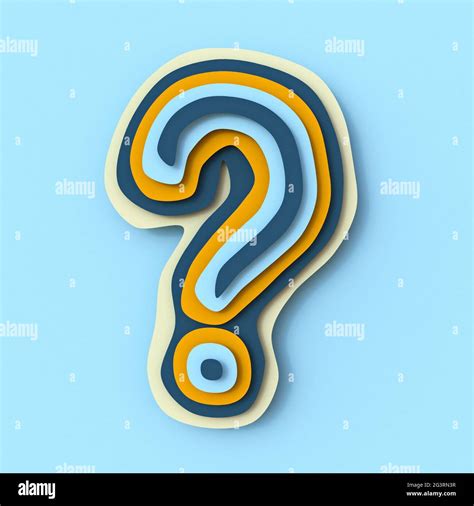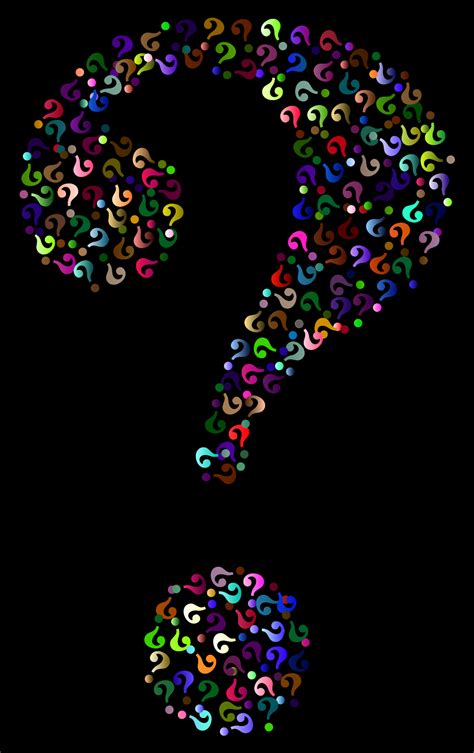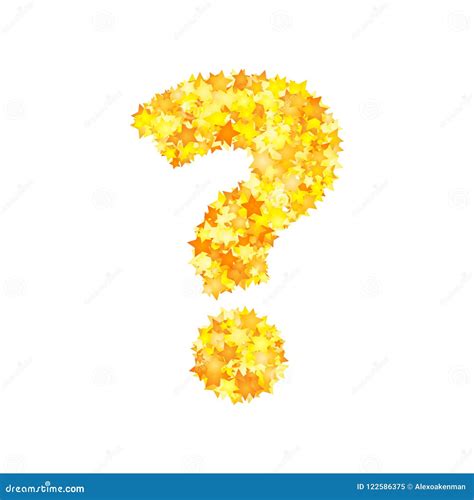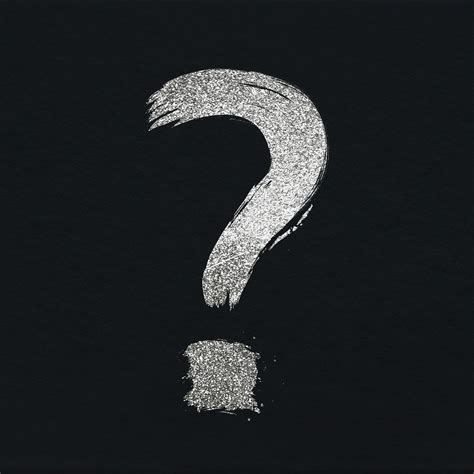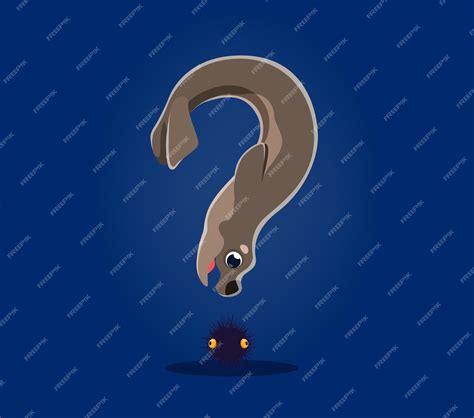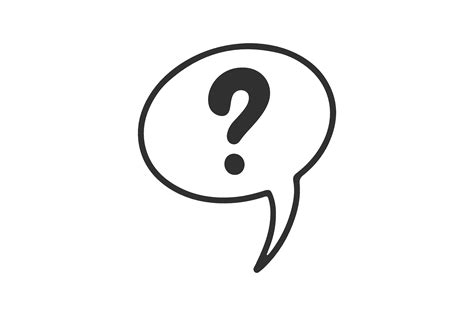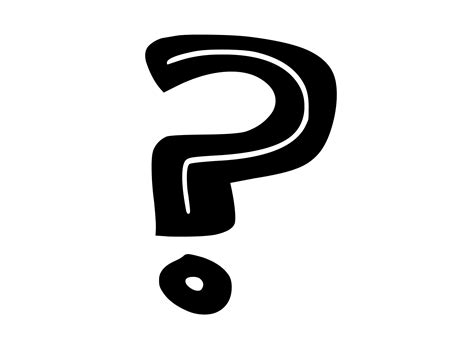
Choosing the perfective typeface for interrogation mark glyph is a subtle art that shape how your audience perceives tone, curiosity, and inquiry in your design. Whether you are crafting a landing page, a graphic novel, or a formal document, the frame of this punctuation grade convey as much as the words surrounding it. Some designers neglect the singularity of individual character, yet a well-chosen case can transmute a standard research into a design argument that fascinate attention and enhances legibility across various digital and print interface.
The Evolution and Anatomy of the Question Mark
The question mark has a rich typographical story, evolving from the Latin punctus interrogativus. Today, it remains the most recognizable index of a query in written communication. When choose a typeface for inquiry marker clarity, you must consider the relationship between the hook and the dot. In professional typography, this is referred to as the "dot-to-curve ratio".
Why Character Shapes Matter
Different typefaces kickshaw punctuation with varying grade of stylistic flourish. Consider these divisor when appraise a font's enquiry mark:
- Stroke Contrast: High-contrast fonts often have delicate, slender bender that might vanish on low-resolution blind.
- Bowl Depth: The breadth of the curve determines how much "white space" exists within the character, which is critical for readability at small point sizing.
- Terminal Style: The bottom dot can be circular, teardrop-shaped, or square, each conveying a different brand phonation.
Comparing Popular Font Styles
The postdate table schema how different font categories loosely plow the query mark glyph, allowing you to match your fount to the desired emotional impact.
| Font Category | Ocular Characteristic | Better Use |
| Seriph | Traditional, teardrop depot | Books, editorial, formal invitation |
| Sans-Serif | Geometric, undifferentiated throw | Web interface, UI/UX, mobile apps |
| Book | Fluid, gestural, expressive | Branding, son, invitations |
| Monospaced | Boxy, technical, retro | Code editor, data-heavy documents |
Selecting the Right Font for Digital Interfaces
When working with digital blind, the fount for query target must stay discriminating regardless of zoom levels. Sans-serif typefaces like Helvetica or Exposed Sans provide eminent readability because their undifferentiated strokes prevent the character from breaking up on sub-pixel rendering. If you are contrive for a FAQ section or a support portal, opt for fonts with exposed aperture, as these ensure the "hole" in the head marking does not clog up when rendered in a dark mode environs.
Tips for Hierarchy and Punctuation
When contrive headlines, you might desire to scale the punctuation specifically. Sometimes, a font's default question mark is too small compared to its alphanumerical similitude. Designers much manually set the size of punctuation marks to attain best ocular proportionality in large-format cope.
💡 Tone: Always test your case pick across multiple twist declaration to ensure the dot of the question marker continue distinctly disunite from the substructure of the bender.
Typography in Editorial Design
In print, serif font offer a svelte, literary feel. A font for inquiry mark in this space frequently feature a classical perpendicular coalition. For instance, in Garamond or Baskerville, the punctuation is balanced to complement the organic stream of the serif letters. These case force the eye course across the line, making the question feel like an invitation for the reader to hesitate and excogitate.
Creative Uses of Punctuation
Beyond measure schoolbook, punctuation can be used as a design ingredient. Some show case volunteer stylized versions of the fiber, where the dot might be supersede by a whiz, a heart, or a geometric shape. This is common in branding where a company require to emphasize a playful or "questioning" make individuality.
💡 Line: When buy commercial fonts, control that the glyph set include comprehensive international punctuation marks if you are designing for planetary audience.
Select the right fount regard equilibrate aesthetic preference with the pragmatic requirements of your specific task. By carefully judge how a typeface renders its punctuation marks, you ascertain that your communicating remains both legible and visually prosecute. Whether you prioritise the clean line of a modernistic sans-serif or the greco-roman elegance of a serif pattern, your option of font configuration the way exploiter interact with your substance. Give care to these okay particular finally leads to a more professional event and a best experience for the subscriber when employ with any write interrogative.